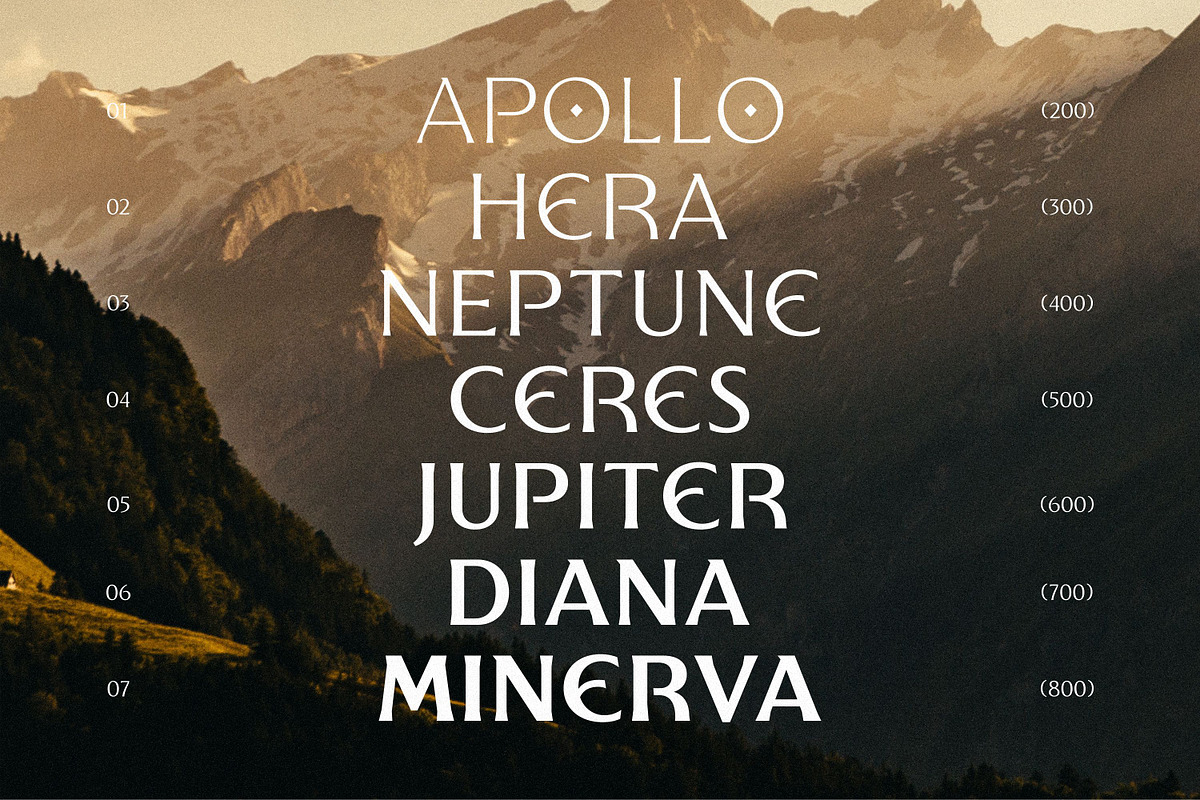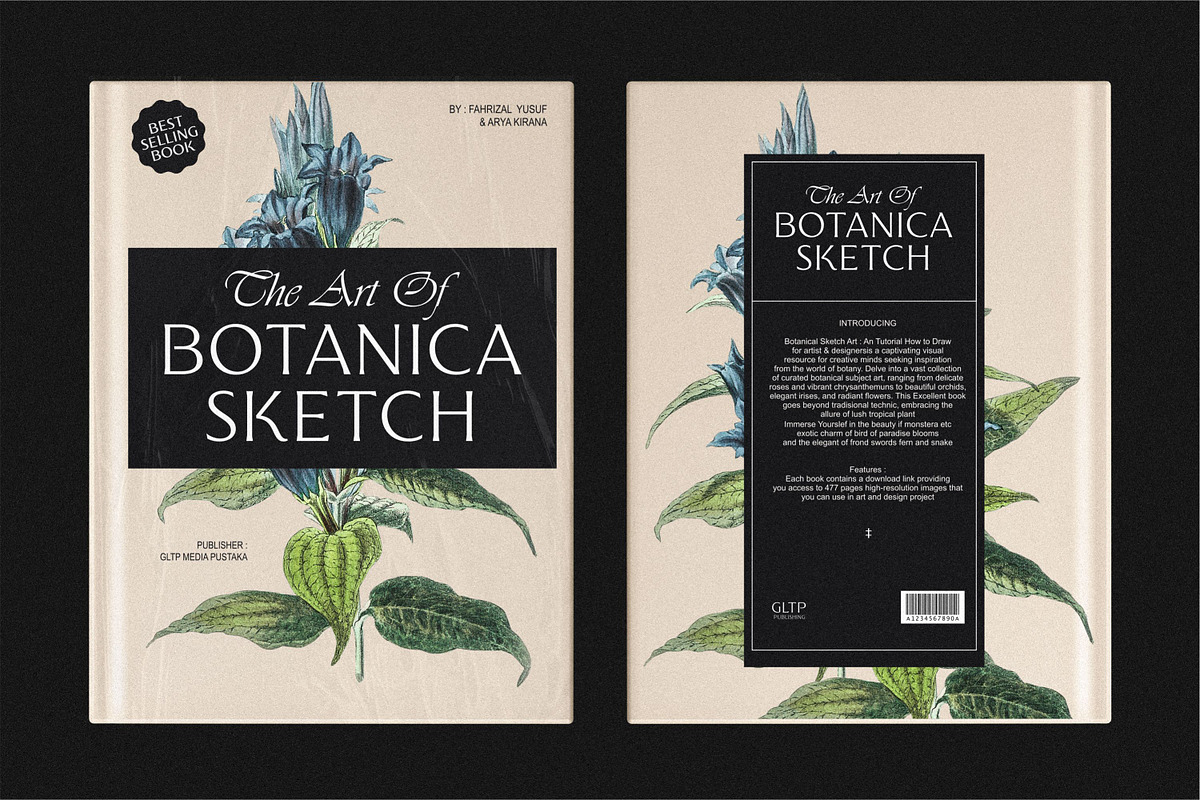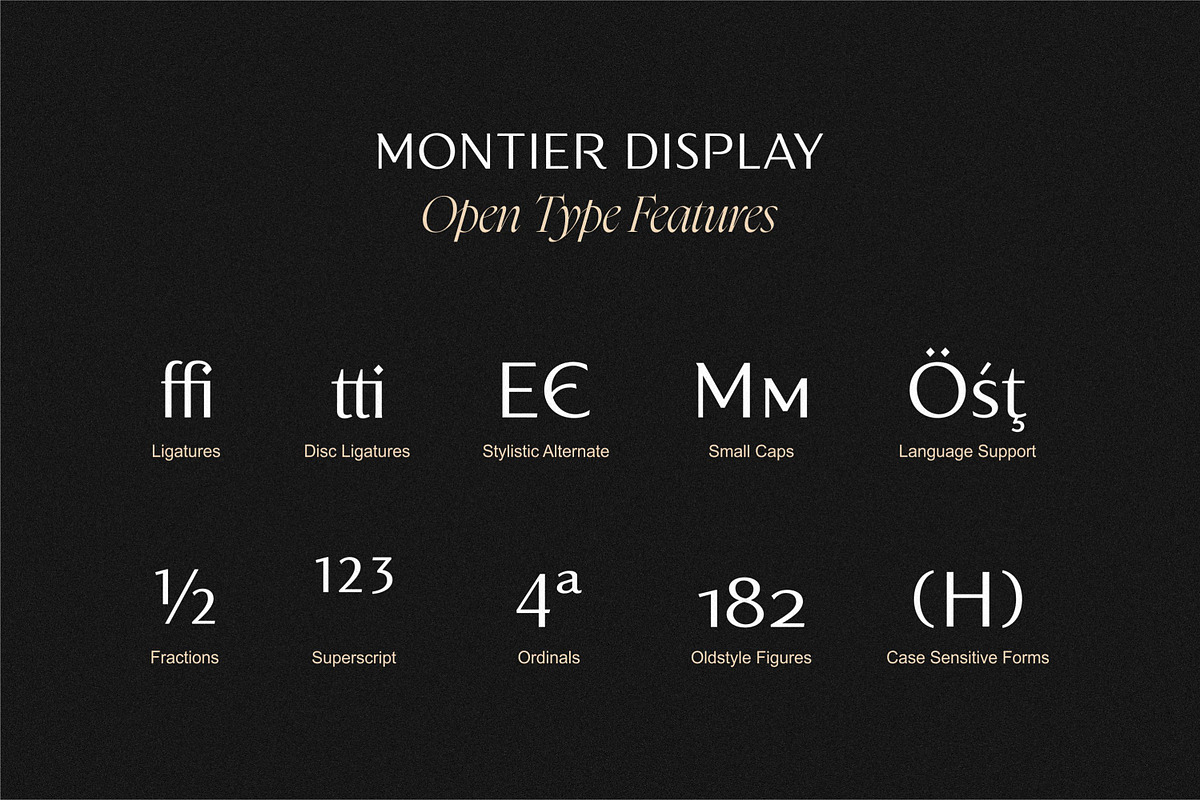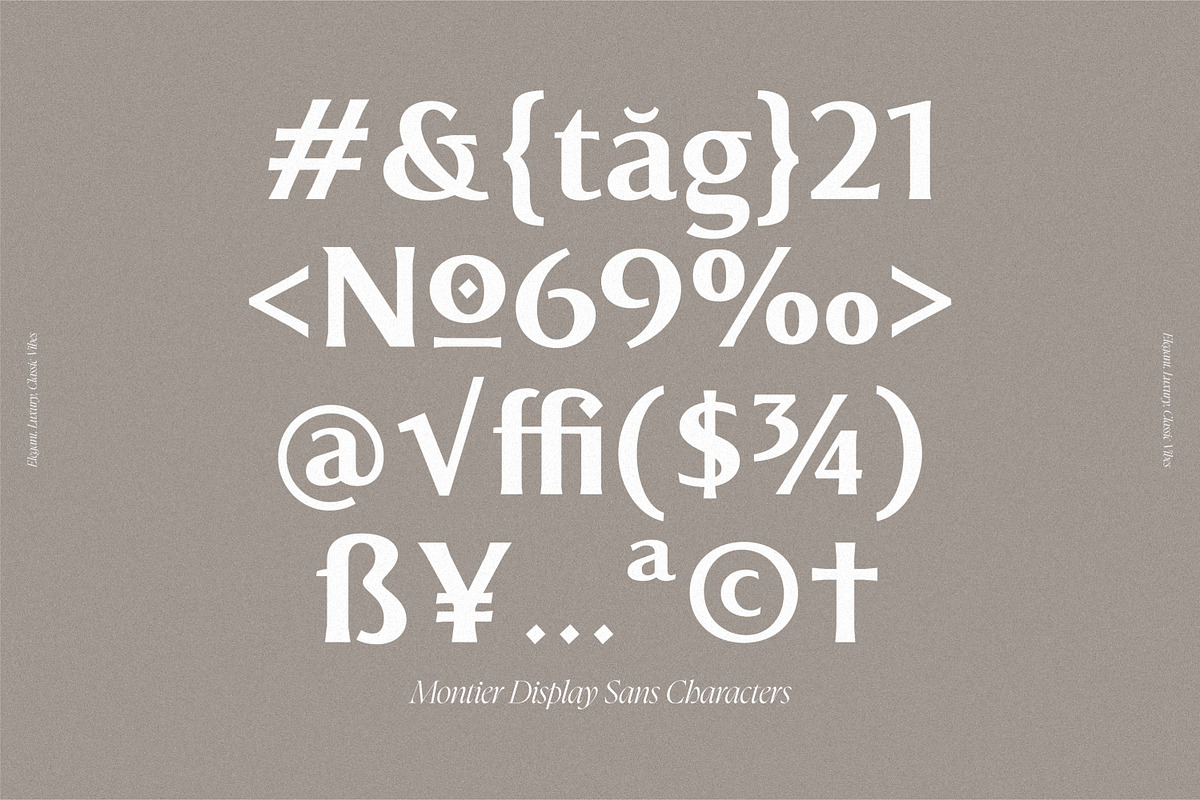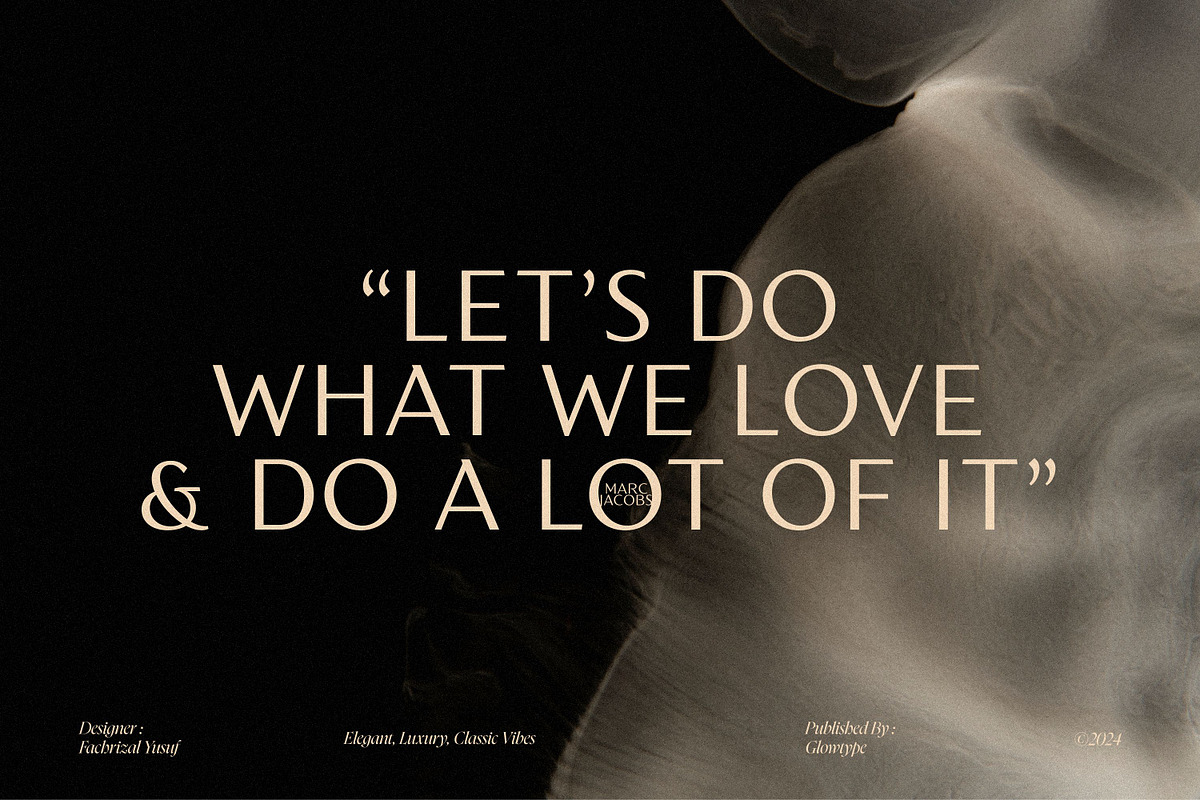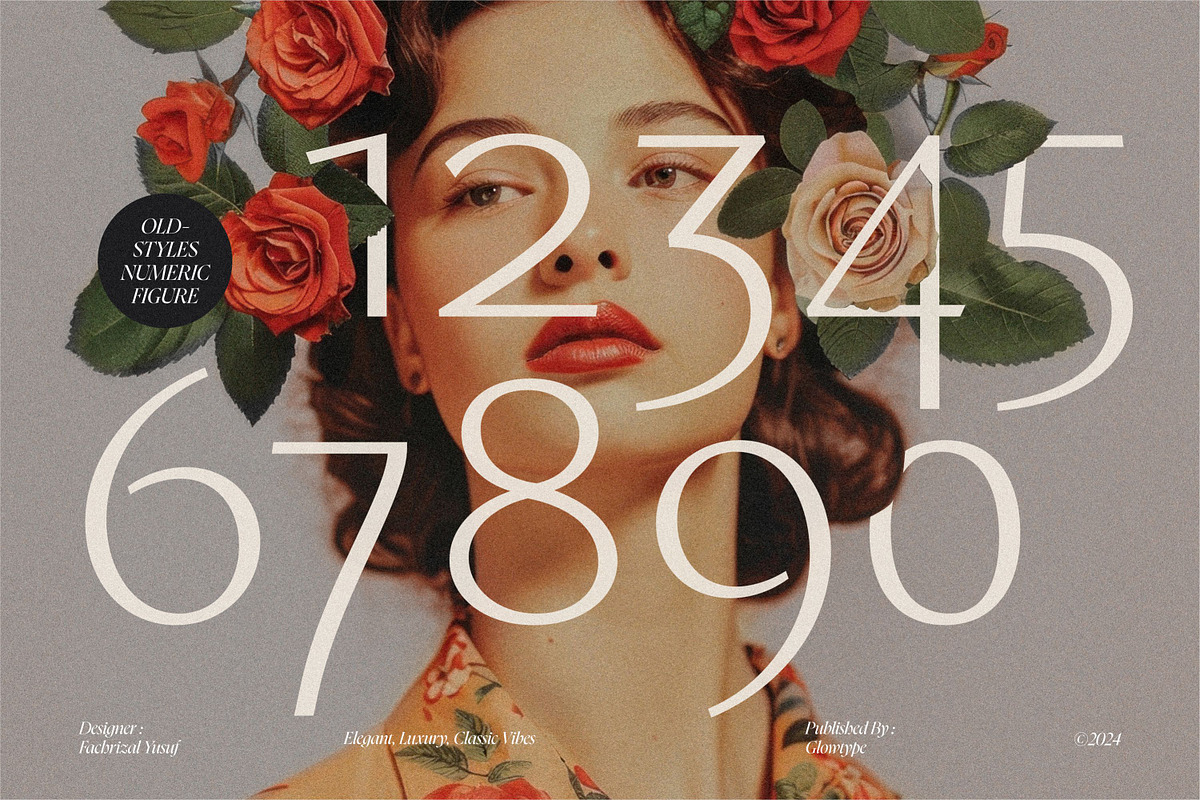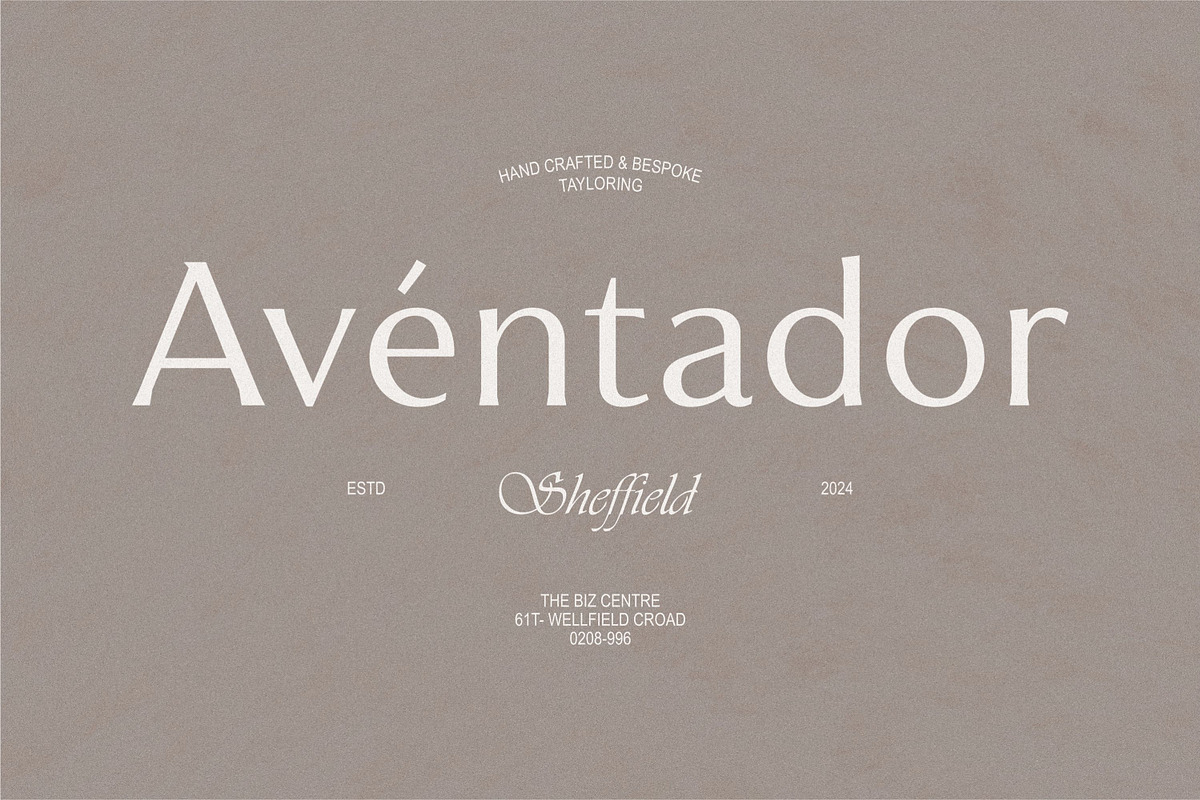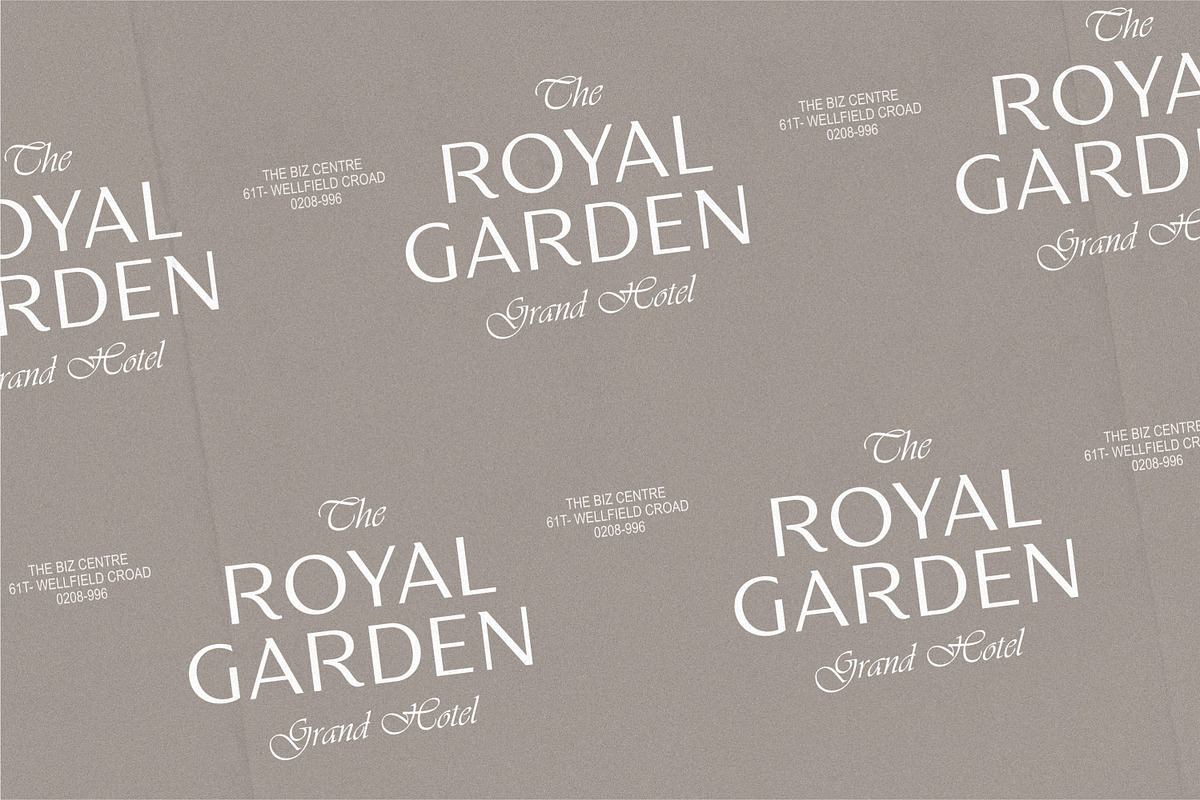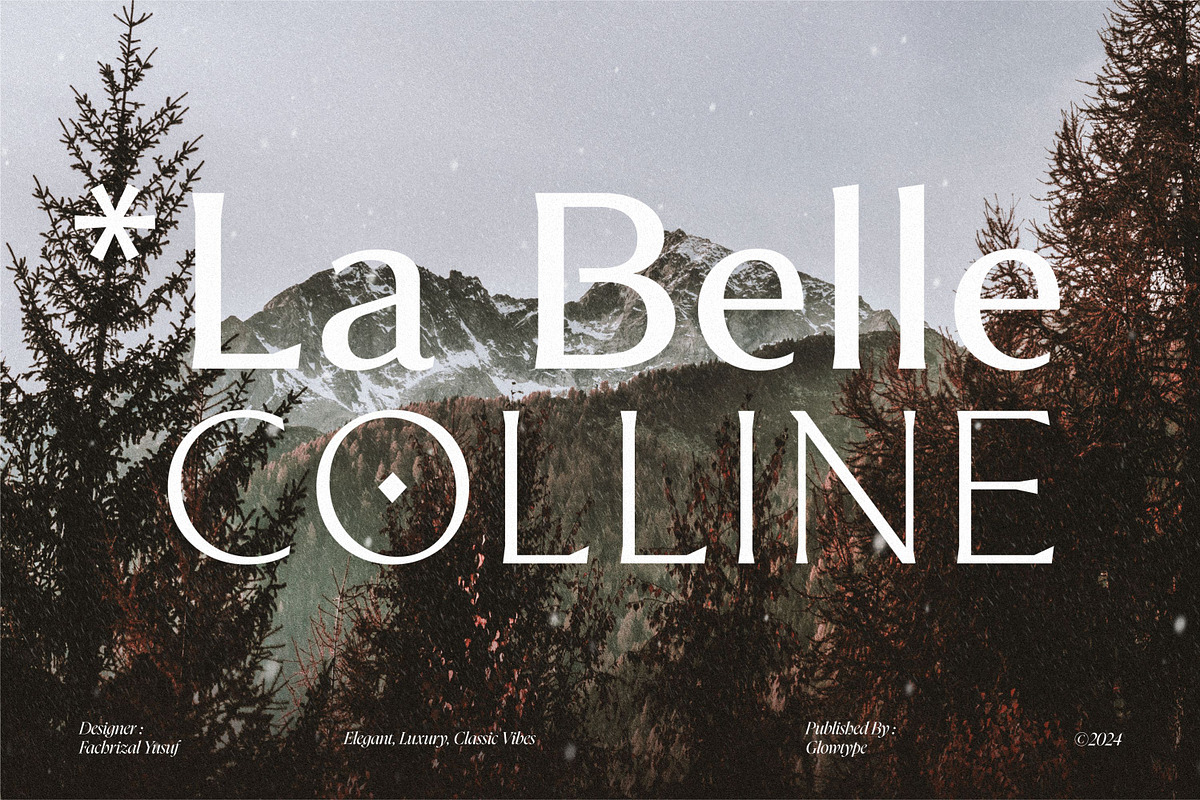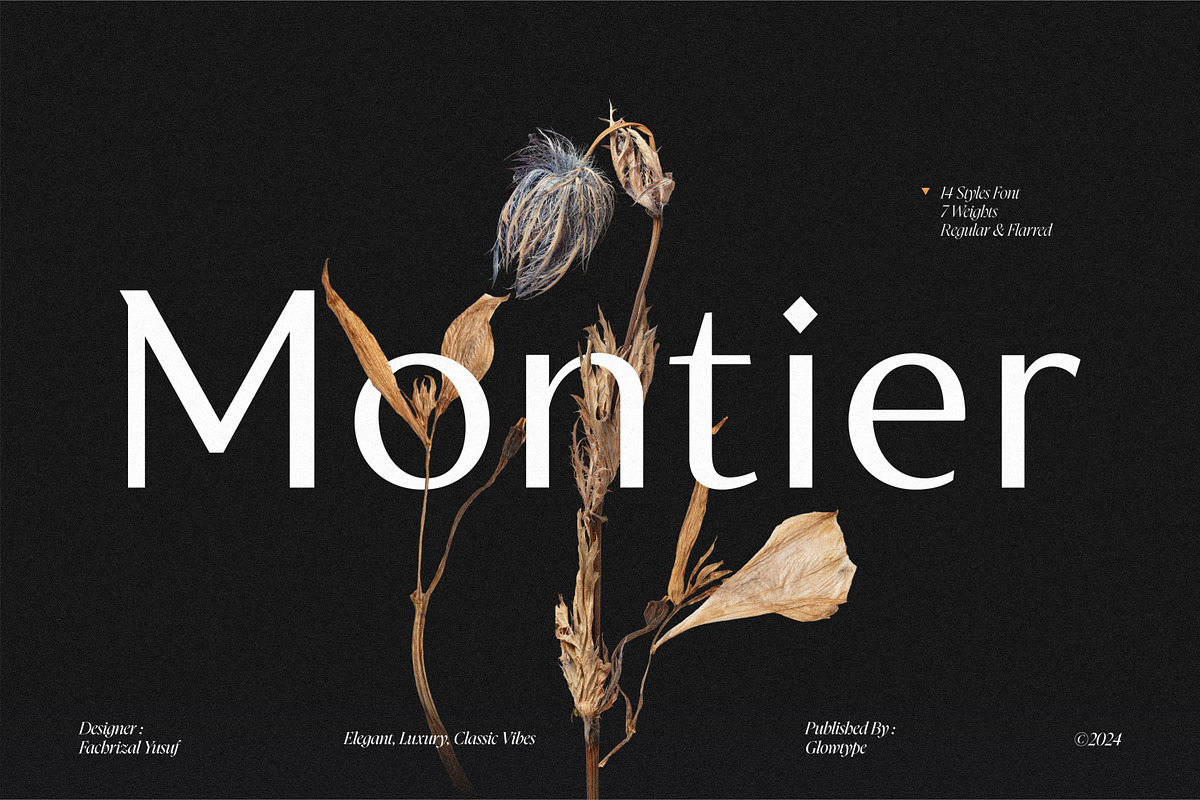
Montier Elegant Display
Montier A Elegant meet Classic Vibes was created to express things in a classic yet glamorous way. Come with two style to give different vibes, Regular to give elegant, luxury and masculine vibes and Flared to give classical and roman vibes.
Montier is perfect for display purposes such as editorial projects, Logo designs, Music Albums, Apparel Branding, product packaging, magazine headlines, or simply as a stylish text overlay on any background image.
-Regular -Flared -Variable -Ligatures -Discretionery Ligatures -Small Caps -Old Style Numeric Figure -Stylistic Alternates -OTF -TTF -WOFF